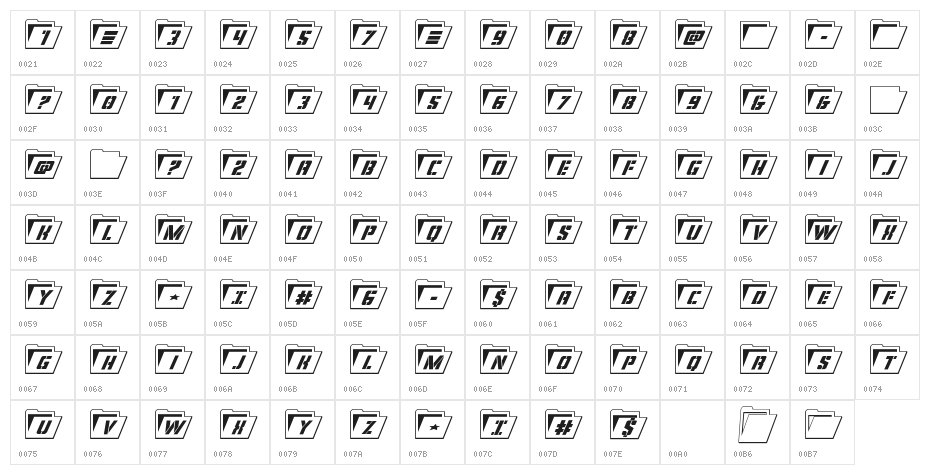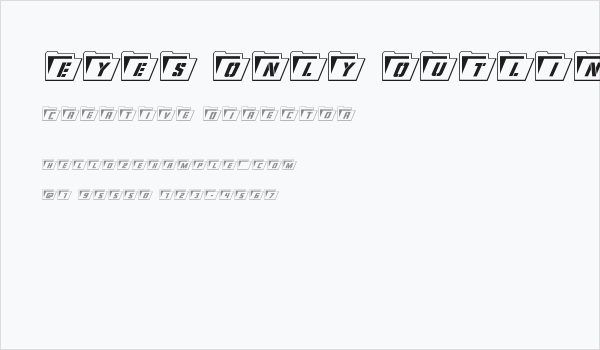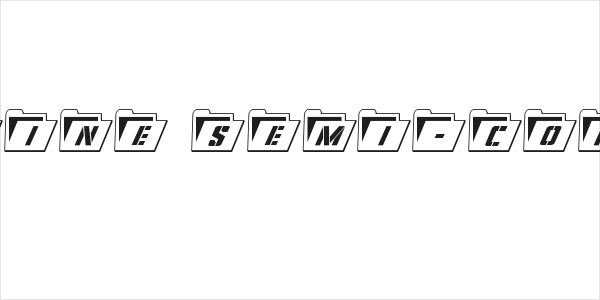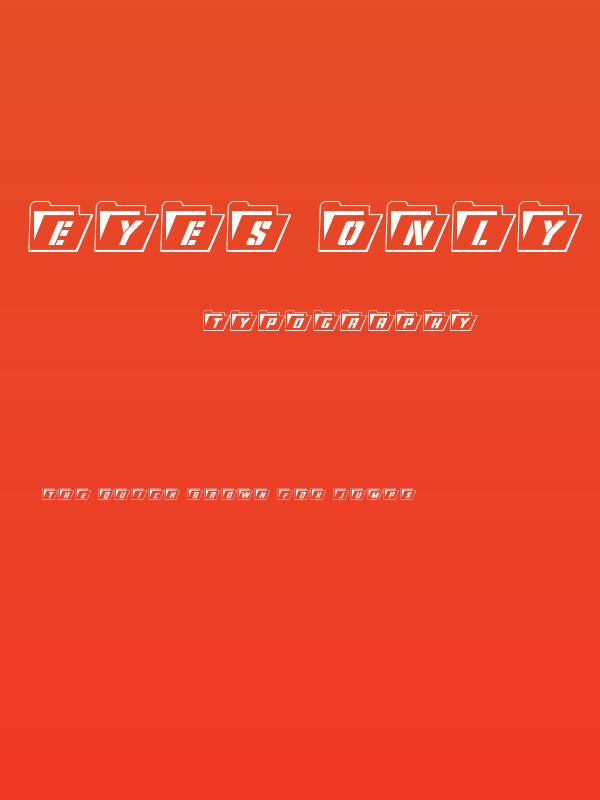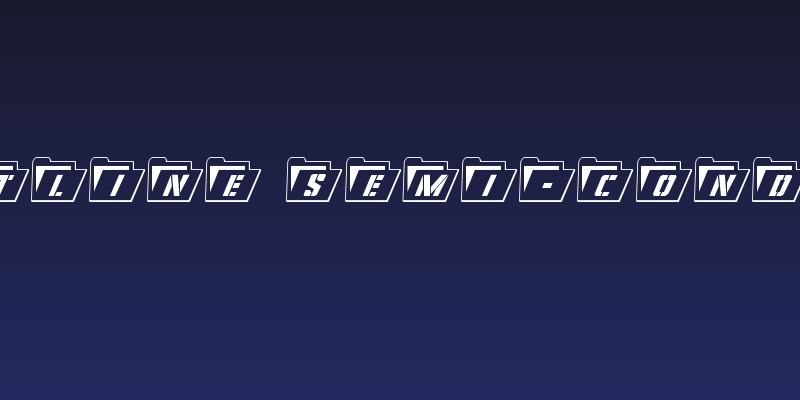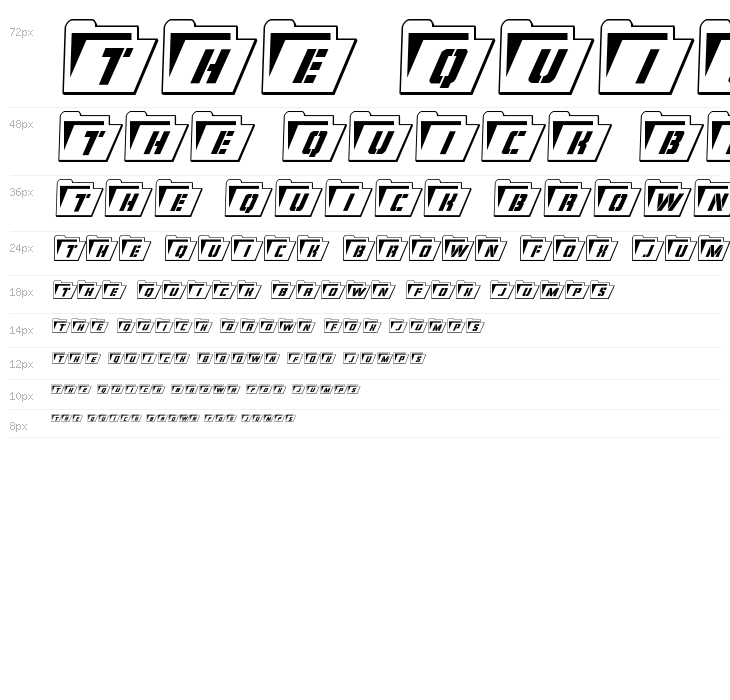
Eyes Only Outline Semi-Condensed Italic Font
Eyes Only Outline Semi-Condensed Italic Description
This font features a unique and modern design with each character enclosed within a folder-like outline, giving it a distinct and playful appearance. The letters are italicized, adding a sense of motion and dynamism. The semi-condensed width allows for efficient use of space while maintaining readability. The outline style provides a bold contrast against the background, making it suitable for eye-catching designs. Its geometric and structured form is ideal for creative projects that require a contemporary and unconventional look.
| Proposed Projects | Ideal for tech-related branding, digital art projects, and modern advertising campaigns. |